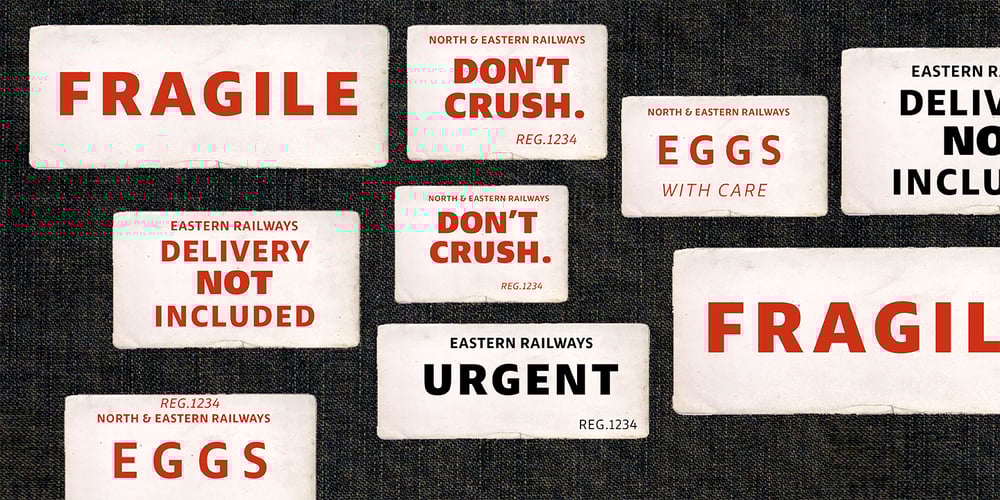
Ebony Font Family was designed by Veronika Burian, José Scaglione and published by TypeTogether. Ebony contains 18 styles and family package options. Some typefaces need time to ripen; Burian and Scaglione made the first sketches for Ebony back in 2008, but it took a few years of maturing in a drawer to be developed into a multi-functional type family. While keeping in tune with TypeTogether’s focus on complex typographic structures needed for magazine, newspapers and books —whether printed or digital—, Ebony goes far beyond editorial use and promises great performance in branding and advertising. The range of dark weights with taut and powerful curves can boost any headline, while the lighter styles create an approachable and clean feel in blocks of continuous text. Ebony does not fall short on aiding legibility either; letterforms have a distinct direction of ductus and features like the top serif on ‘l’ help making them clearly distinguishable from each other. It is a type family that cleverly seeks a balance between the openness and legibility of humanist sans serifs and the striking and more regularised character of grotesques. The letter-shapes feature generous counters and open terminals with crisp angles, and daringly grow both in colour and width as the fonts get bolder. Infused with this strength, Ebony also shows a quirky side in some of her shapes; the vertical fractions, the at-symbol, the old-style numbers, … The predominantly slanted style of the italics is broken up in some letterforms, such as ‘a e f l’, that are more in line with a classic cursive appearance. This, together with a forceful italic angle, ensure a change in texture within a block of text, despite sharing the same letter weight and width with the uprights. With 18 styles, tending towards the heavier part of the weight-spectrum, this face has a powerful quality!